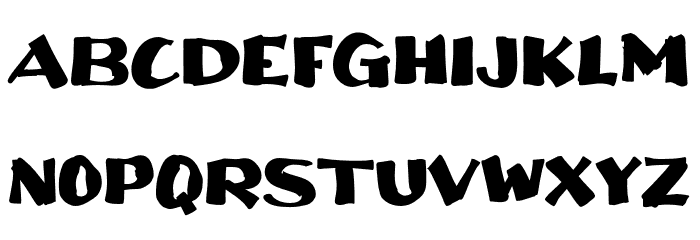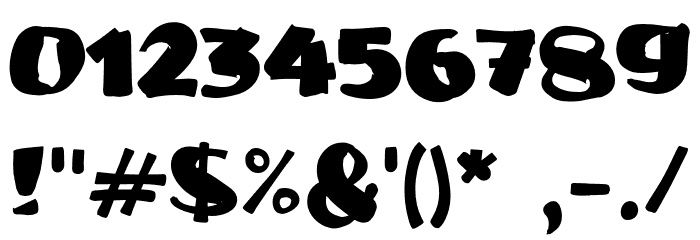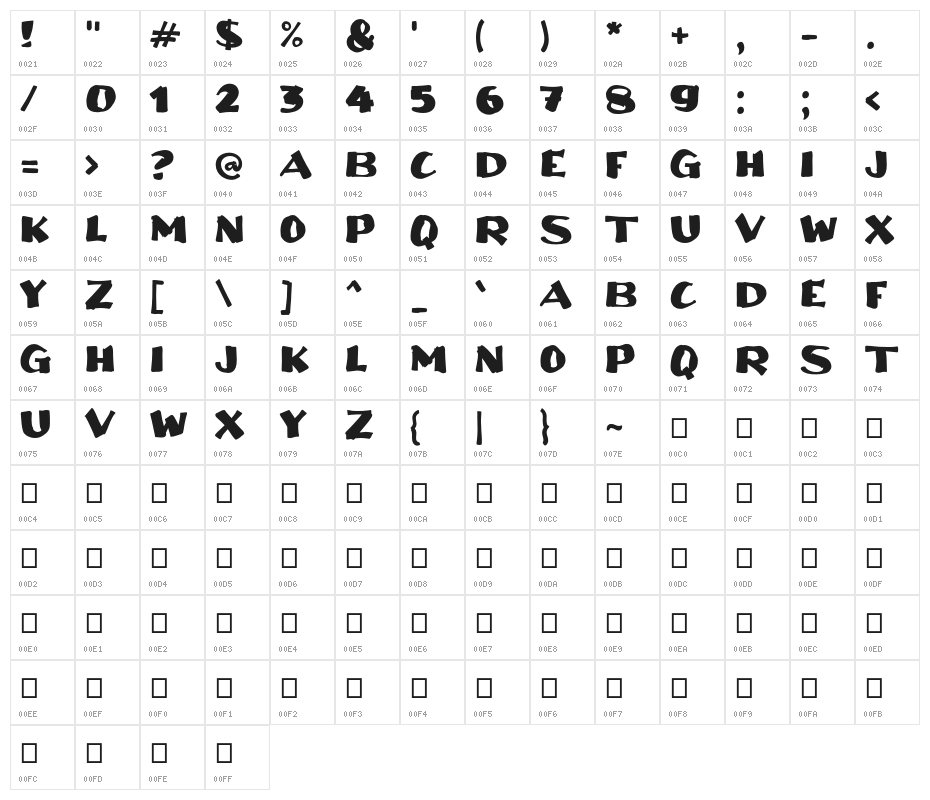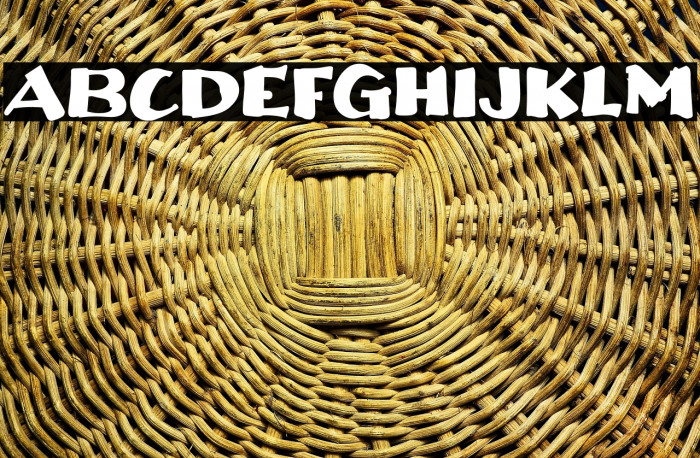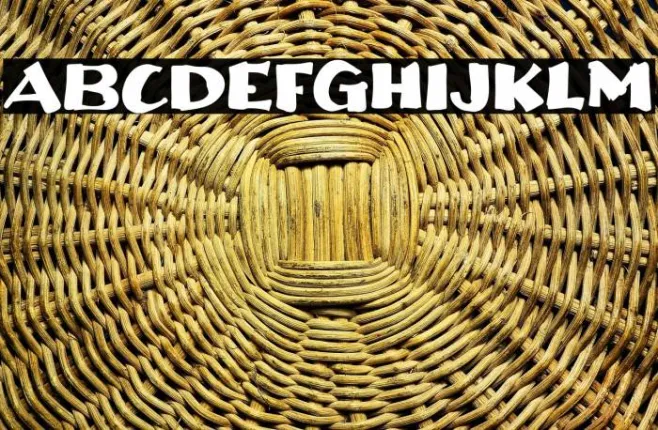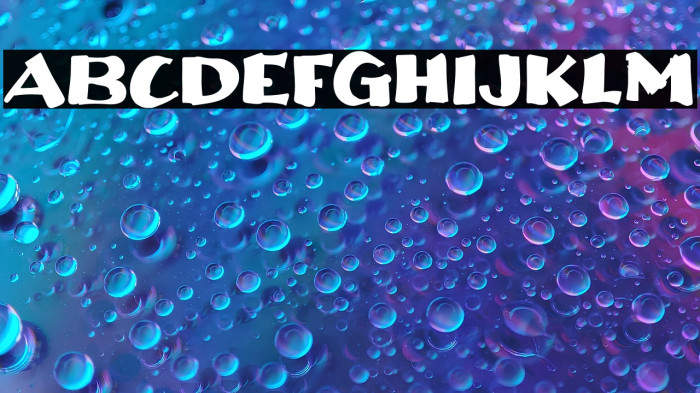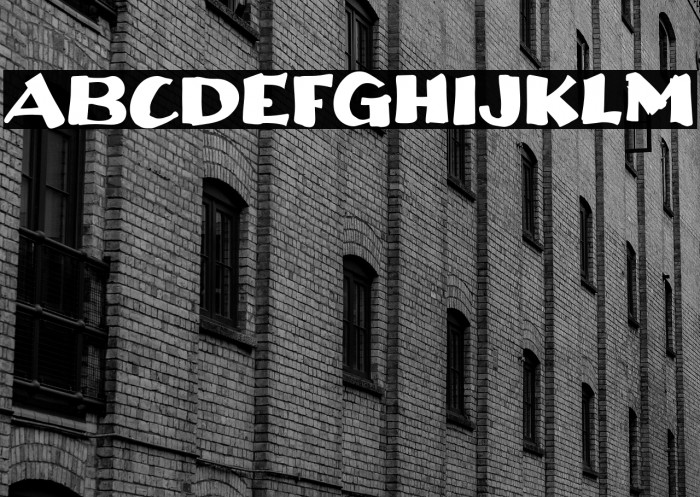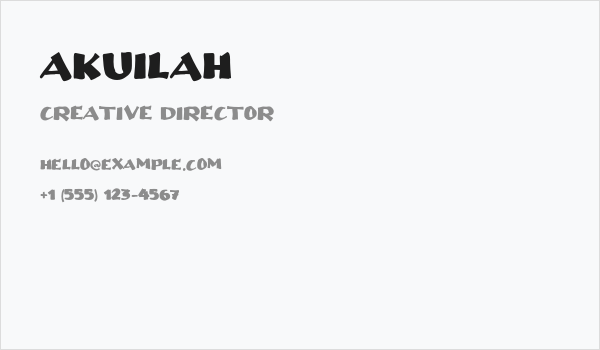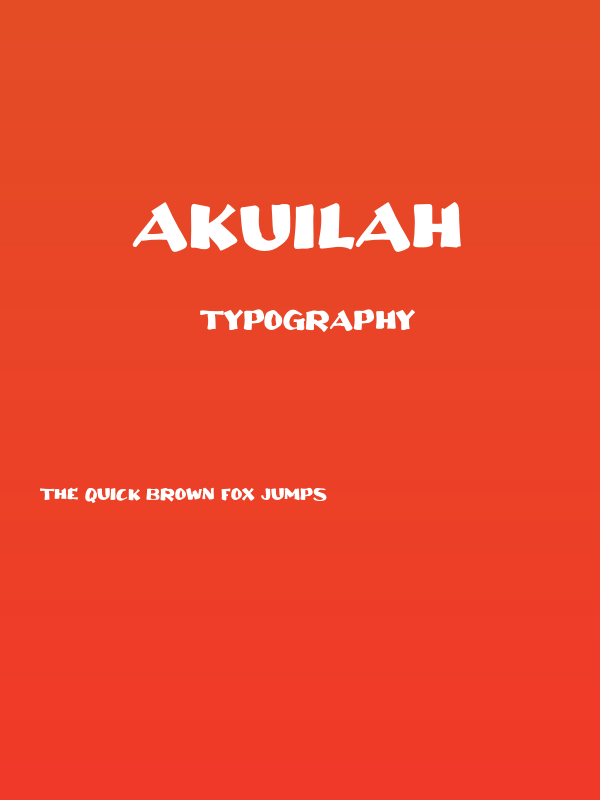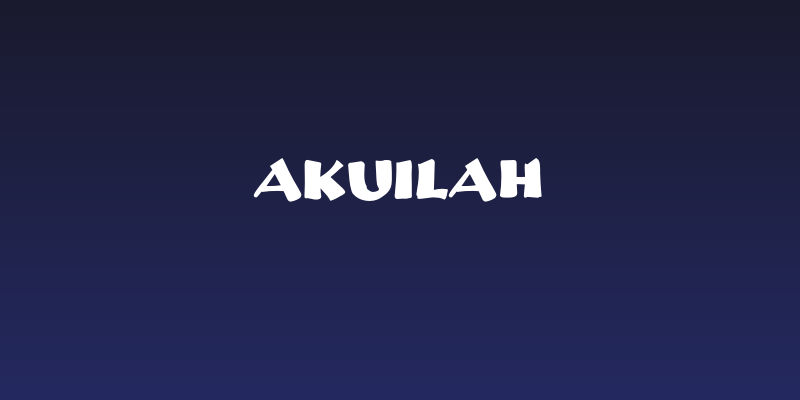
Akuilah Font
This font exhibits a bold and dynamic style, characterized by its thick strokes and slightly irregular edges, giving it a hand-drawn appearance. The uppercase and lowercase letters maintain a consistent weight, contributing to a cohesive look. The numerals and special characters are equally bold, ensuring readability and impact. The overall design is expressive and energetic, suitable for making a strong visual statement.
A bold, hand-drawn style font with thick strokes and dynamic character.
- Font: Akuilah
- Proposed Projects: Ideal for posters, headlines, branding, and any project requiring a bold, artistic touch.